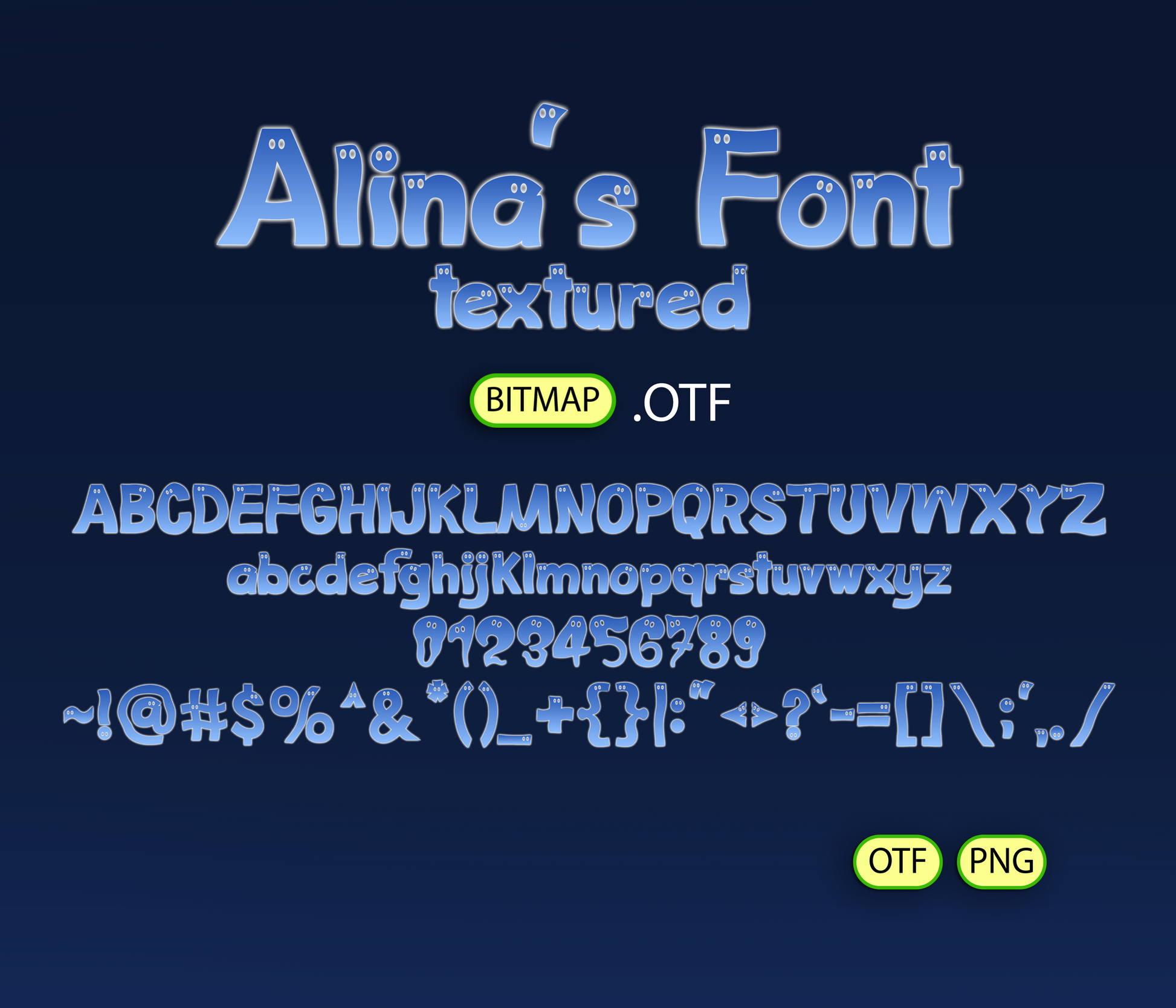
Spectral Manor Explorer Font Textured
Spectral Manor Explorer Typography
Step into the spooky yet charming world of a certain ghost-hunting plumber with our Spectral Manor Explorer Typography. This font captures the essence of paranormal adventures with a playful twist, perfect for fans, designers, and creatives looking to add a touch of friendly fright to their projects.
Our Spectral Manor Explorer Typography features whimsical, slightly eerie characters with a hint of cartoon charm, reflecting the blend of spooky themes and lighthearted gameplay. Ideal for:
- Video game fan art and cosplay props
- Halloween-themed party invitations and decorations
- Children's mystery book covers and illustrations
- Website headers and digital graphics for gaming content
- T-shirt and merchandise design for retro game enthusiasts
- Social media content for nostalgic gaming communities
- Posters and banners for haunted house events
- Gaming assets for projects with a comedic horror theme
Our font pays homage to the beloved world of a timid hero and his ghostly adventures, empowering your designs with its charming and slightly spooky spirit. Whether you're crafting fan art, designing themed events, or adding a touch of paranormal fun to personal projects, this font communicates the essence of ghost-hunting escapades with a quirky, game-inspired twist.
Ready to shine some flashlight beam on your creations? This typography set is your virtual Poltergust 3000, sucking up ghosts and breathing life into designs that blend mystery, humor, and a dash of pixel-perfect nostalgia.